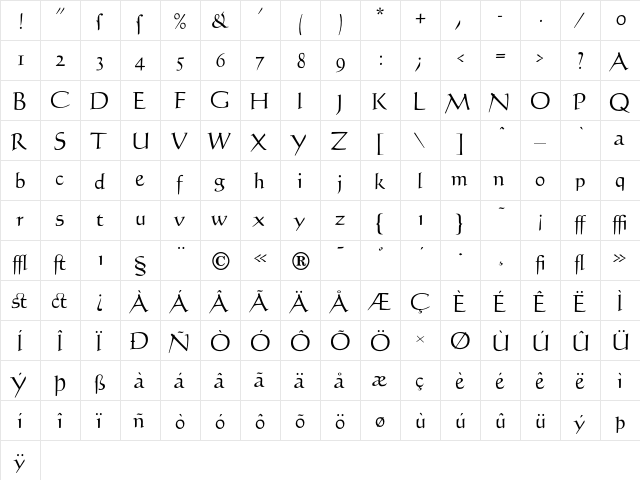
Humanist Regular
Design Context for Humanist Typeface
Humanist takes a measured approach to typography — its balanced proportions and neutral character make it a reliable workhorse for both digital and print work.
Pro Tip: Pair Humanist with a font of contrasting weight or personality to build a more expressive typographic hierarchy.